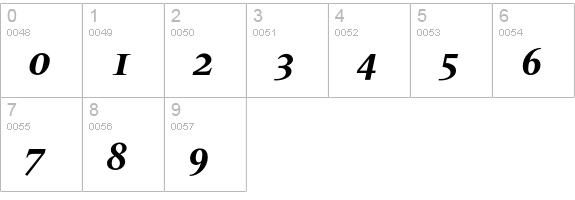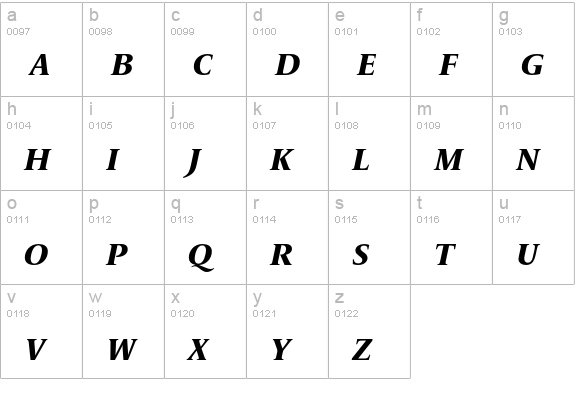
LeMondeLivre Bold Italic Small Caps is a strong, high-contrast, italic variant in the LeMondeLivre typeface family \xE2\x80\x94 well suited to headlines, attention-grabbing titles, and strong calls-to-action.
Introducing LeMondeLivre Bold Italic Small Caps font, a captivating and versatile typeface that exudes elegance and sophistication. With its unique combination of boldness, italics, and small caps, this font is designed to make a bold statement while adding a touch of finesse to any project. LeMondeLivre Bold Italic Small Caps font is perfect for those seeking a font that effortlessly balances modernity with a timeless appeal. Its crisp lines and distinct letterforms create a harmonious blend of strength and grace, making it suitable for a wide range of applications. Whether you're designing a logo, crafting an eye-catching headline, or working on a branding project, LeMondeLivre Bold Italic Small Caps font offers the versatility needed to leave a lasting impression. Its bold and italic variations add depth and emphasis, while the small caps provide a touch of sophistication and professionalism. One of the most remarkable aspects of LeMondeLivre Bold Italic Small Caps font is that it is freely available to download at FontsMarket.com. This means that you can enhance your creative endeavors without any financial constraints. Embrace the freedom to explore and experiment, knowing that this exceptional font is just a click away. So, whether you're a designer, a creative professional, or an enthusiast seeking to elevate your typography game, LeMondeLivre Bold Italic Small Caps font is a must-have in your font library. Its striking presence, combined with the convenience of being freely accessible at FontsMarket.com, makes it an invaluable asset for all your design projects. Elevate your creativity and let LeMondeLivre Bold Italic Small Caps font empower your visual storytelling.